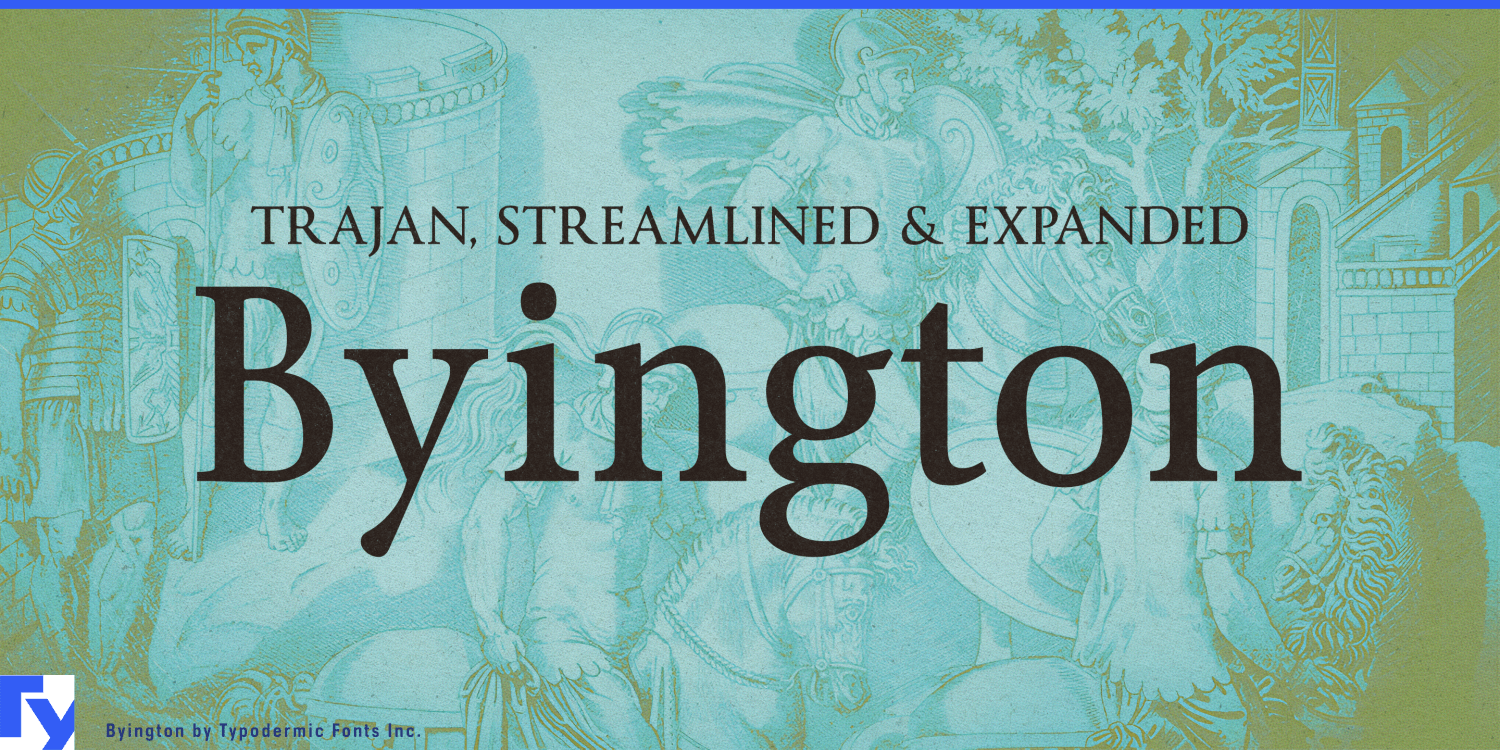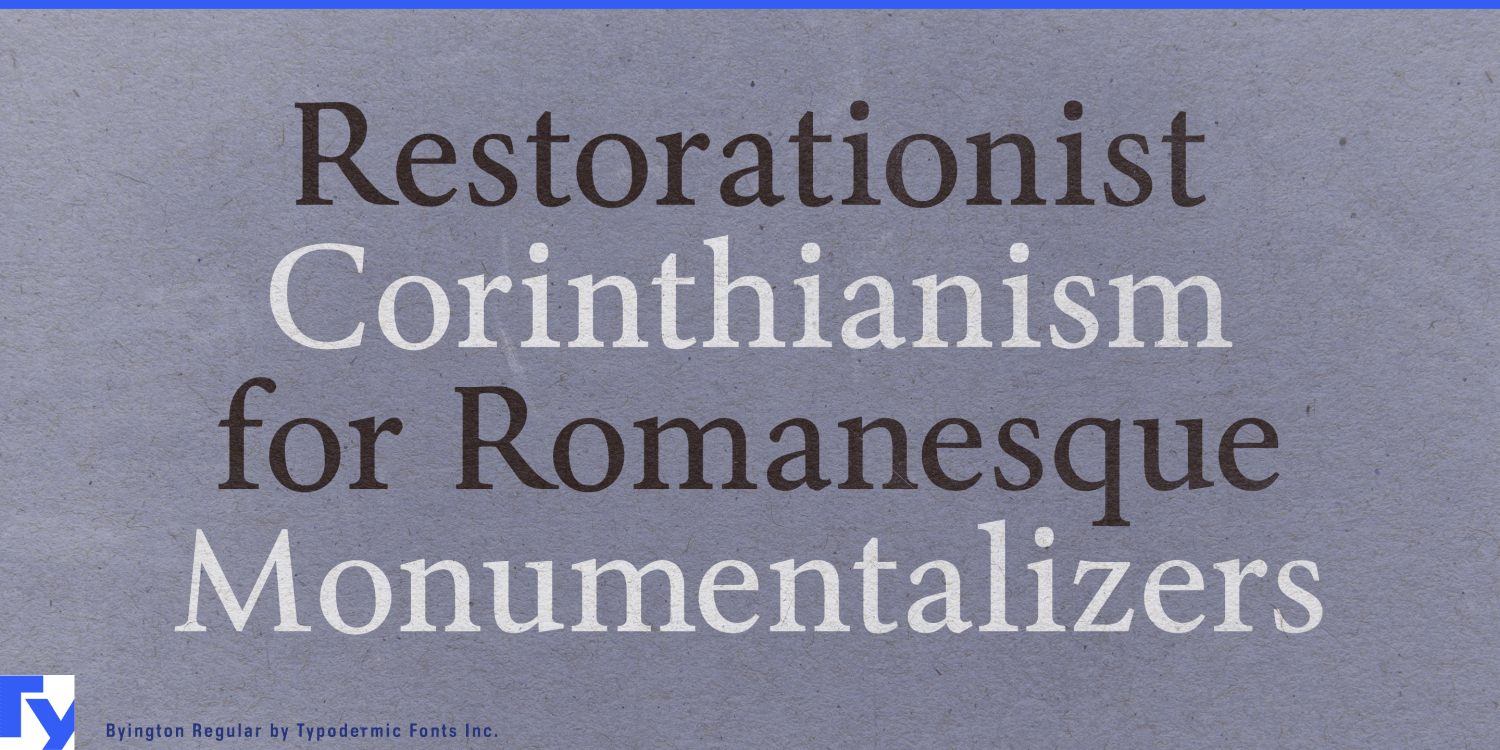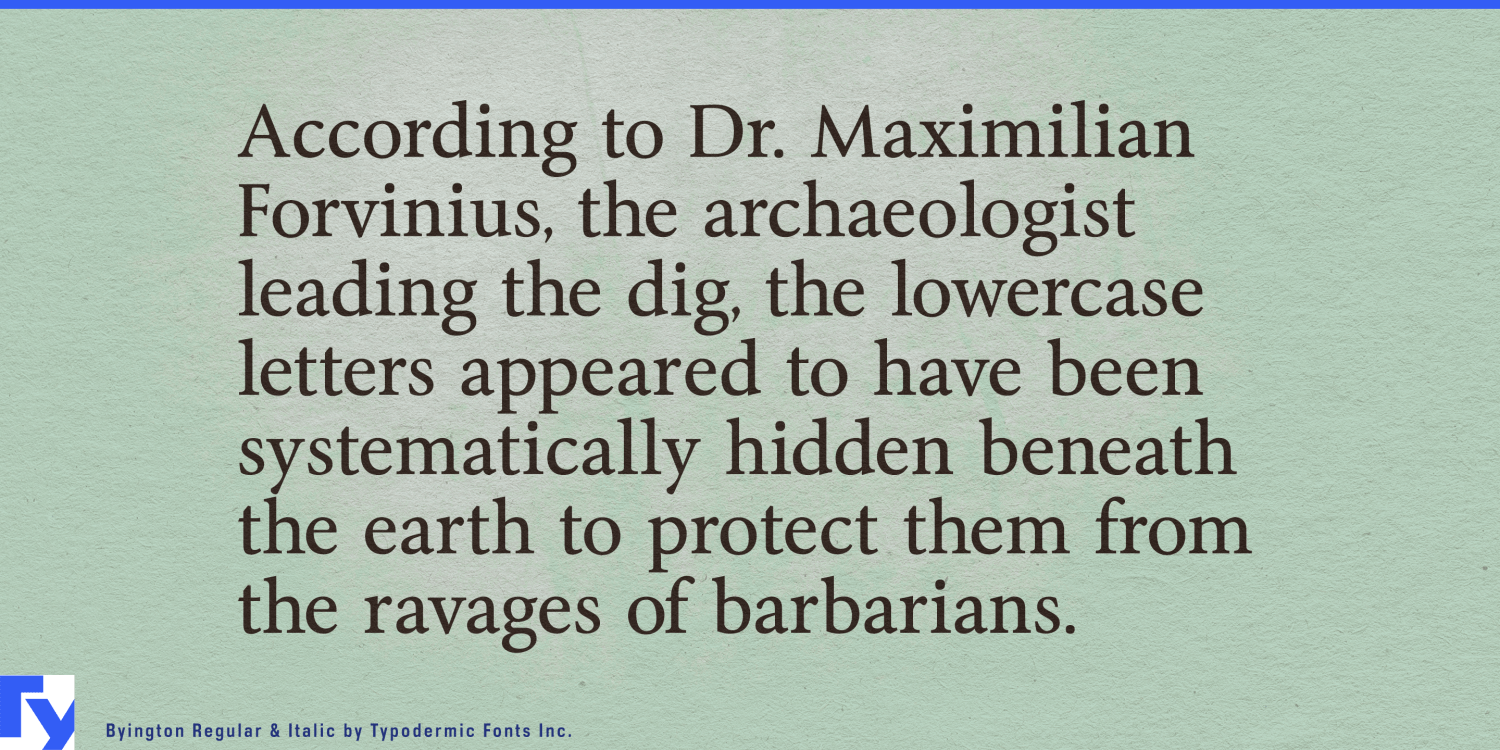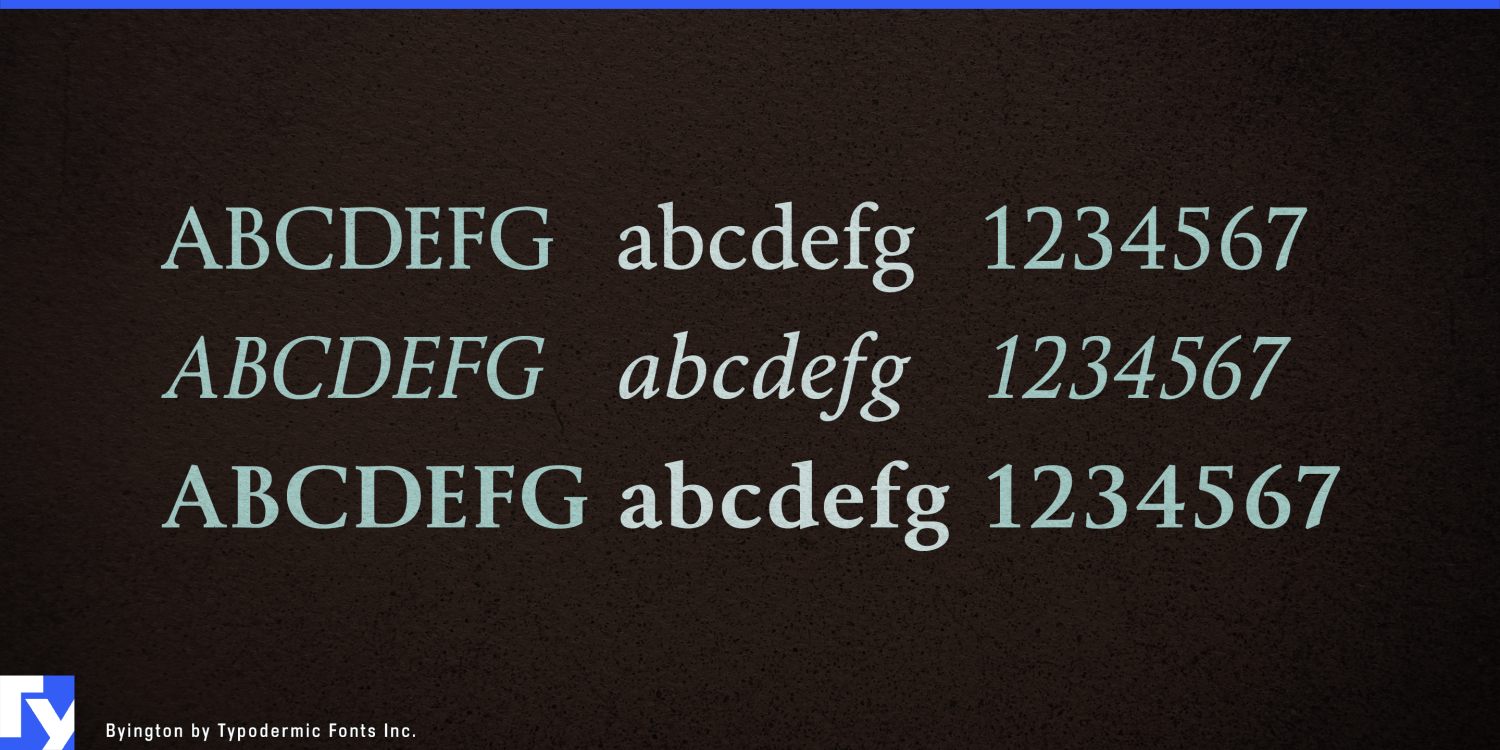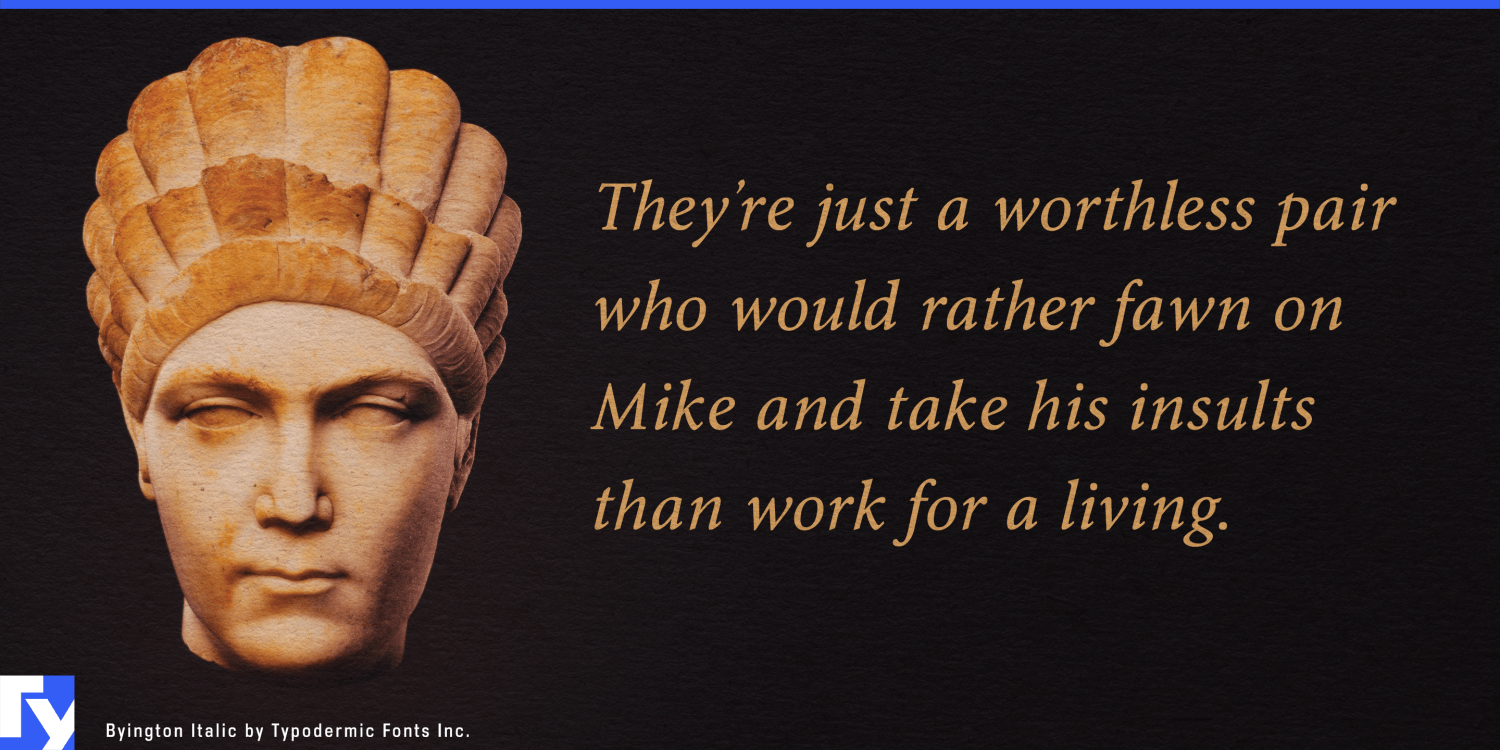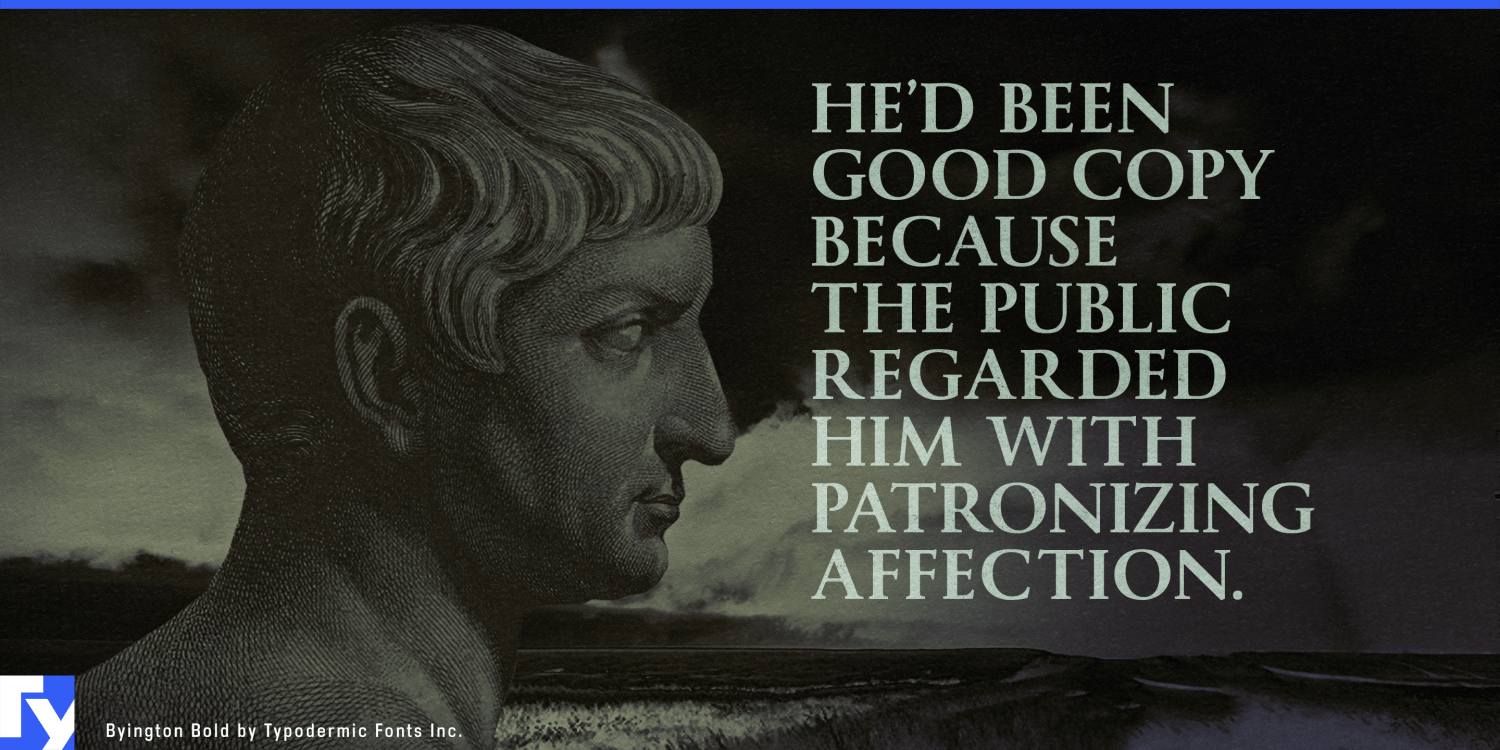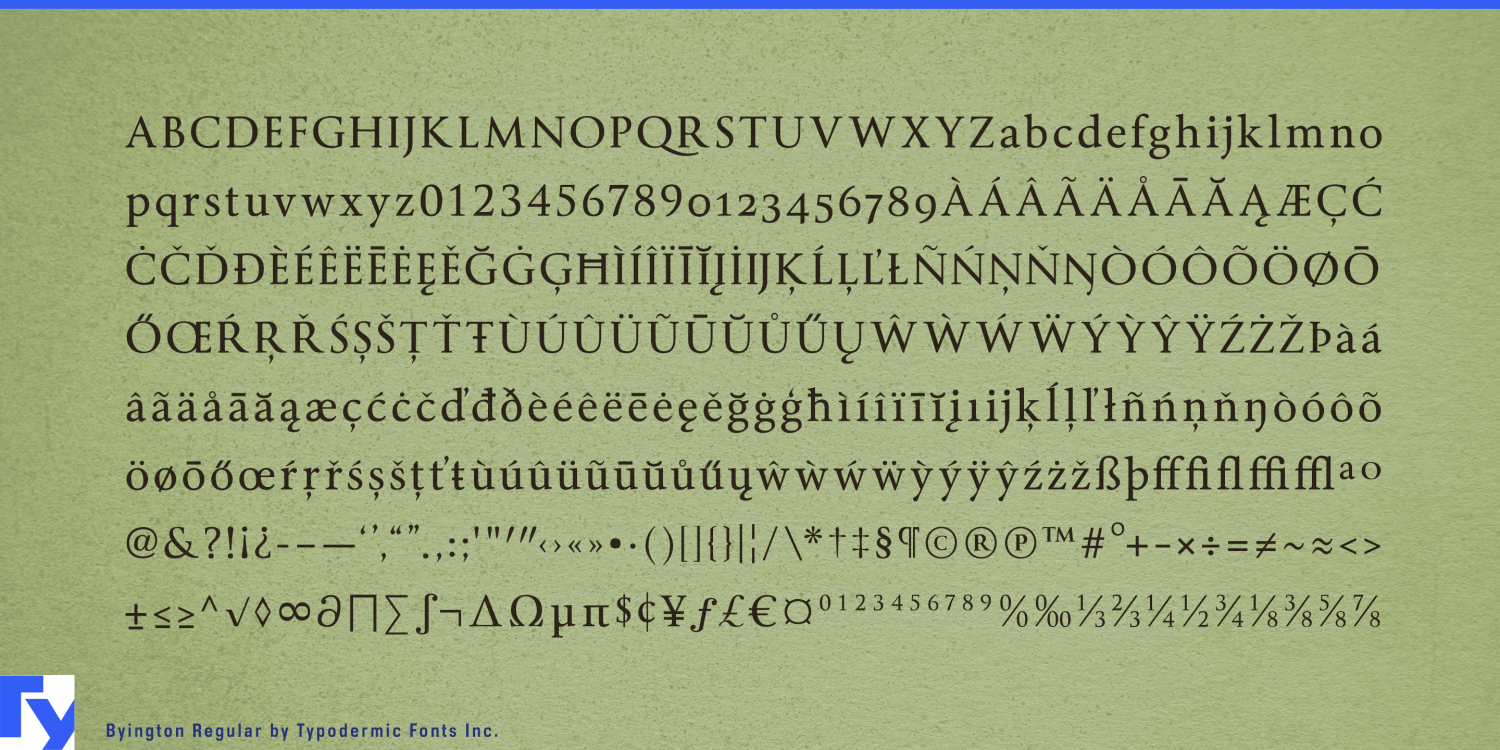
Byington
Buy NowTrajan is one of typography’s clearest shortcuts to monumentality, right up until the client asks for lowercase. Then the designer has a practical problem: keep the Roman inscriptional capitals and bolt on something unrelated, abandon the direction, or find a family that can carry the same authority beyond a single line. Byington was built for that situation. Its capitals draw on the monumental Roman tradition associated with Trajan, while its lowercase extends that character into mixed-case names, headings, sub-brands, and supporting display typography.
Byington is also tougher than the usual inscriptional model. It originated in a screen project where fine serifs and delicate transitions had to survive low-resolution video, so the forms were strengthened rather than treated as an archaeological reconstruction. That gives the family a more substantial presence on signs, menus, plaques, packaging, displays, and other applications where a fragile classical serif can feel too refined.
Premium hospitality is one of the clearest uses. Heritage hotels, destination resorts, private clubs, golf resorts, steakhouses, and formal restaurant groups often want Roman authority for the main name but need far more than a logo. Byington can continue into restaurant names, room categories, facility names, menu headings, event titles, guest materials, and environmental graphics without changing typographic language every time lowercase appears.
Museums, universities, foundations, performing-arts organizations, and historical institutions face the same problem. A monumental title may establish the right tone for an institution, exhibition, building, or commemorative program, but real systems also need gallery names, lecture series, donor recognition, annual-report headings, event titles, and directional graphics.
Prestige film, television, documentary, and narrative games provide another natural territory. A Trajan-like title can establish historical scale or institutional gravity, but a franchise soon needs episode cards, chapter names, character introductions, locations, factions, expansions, menus, and promotional headings. Byington keeps that Roman-derived atmosphere working after the title sequence ends.
Its sturdier construction also suits dimensional lettering, donor walls, engraved plaques, etched glass, stone or metal signage, building names, and formal wayfinding. The same quality carries into premium products where heritage and physical substance matter, including wine estates, distilleries, leather goods, luggage, and classic-vehicle specialists.
Byington keeps monumental Roman lettering useful after the first line. The capitals establish the grand gesture; the lowercase and sturdier construction let the same voice continue into the practical parts of an identity.